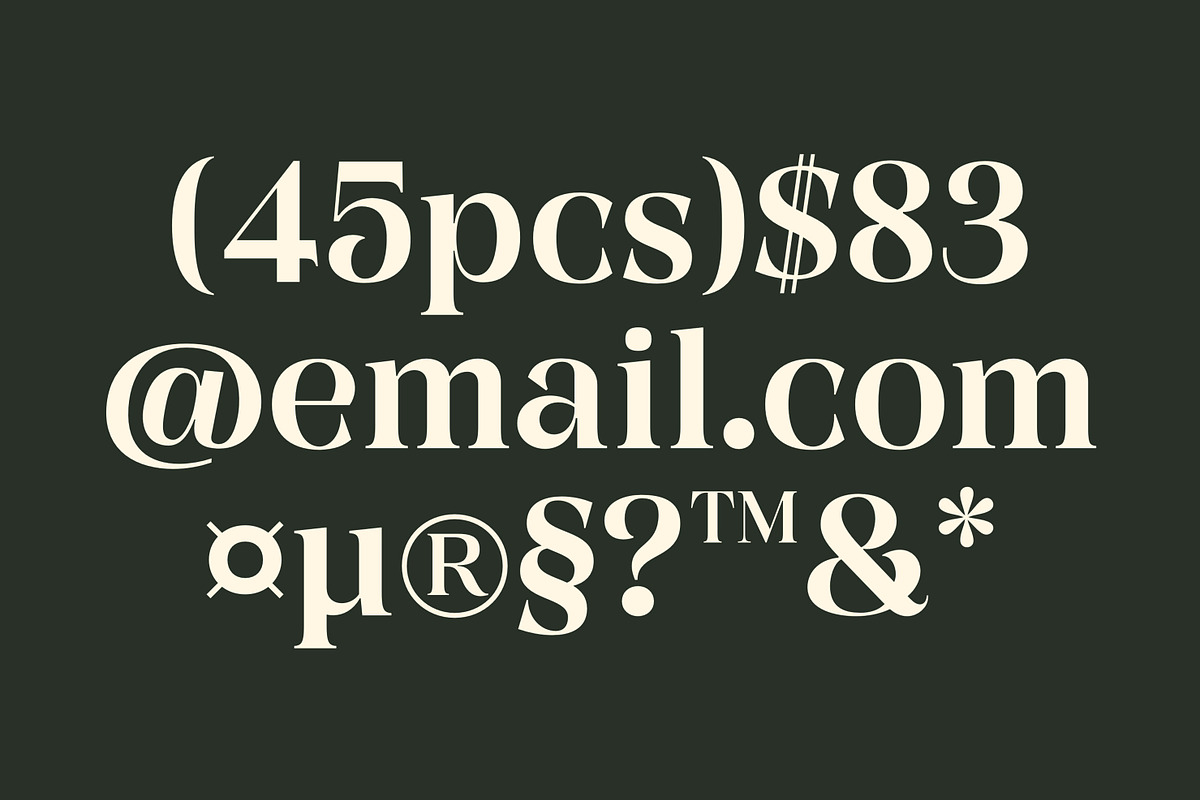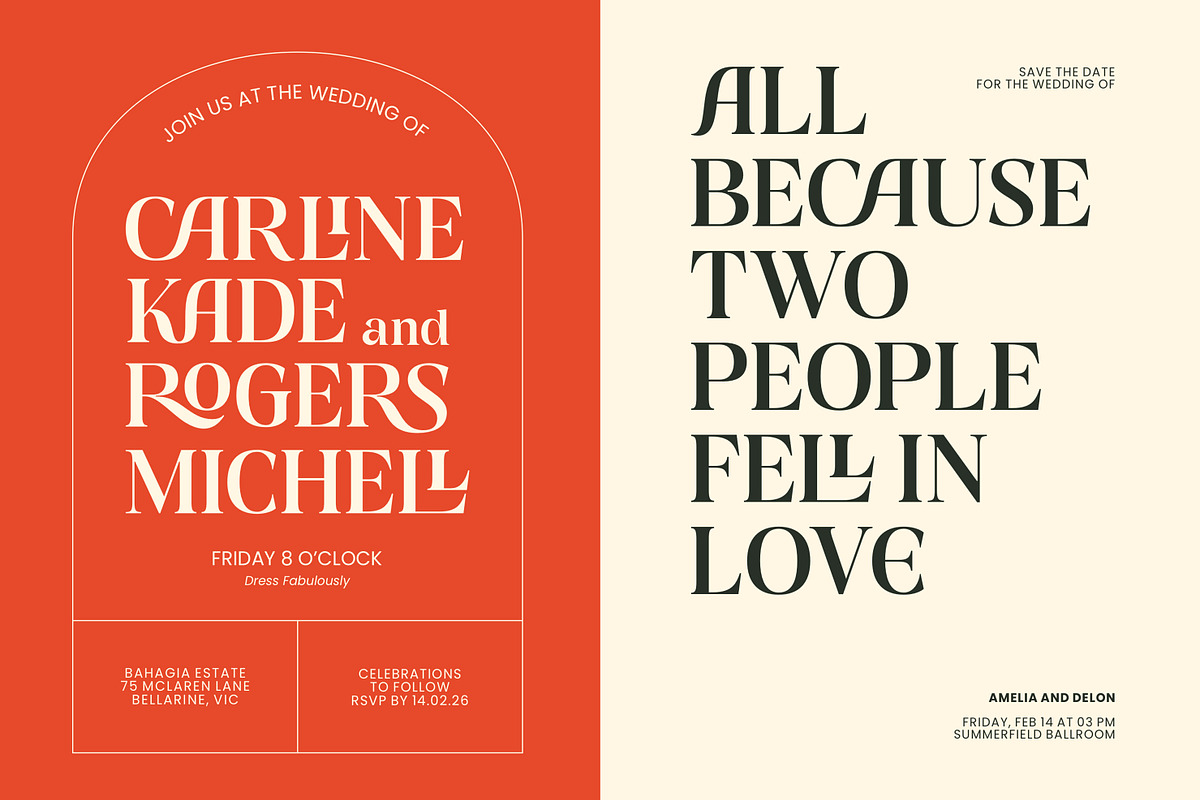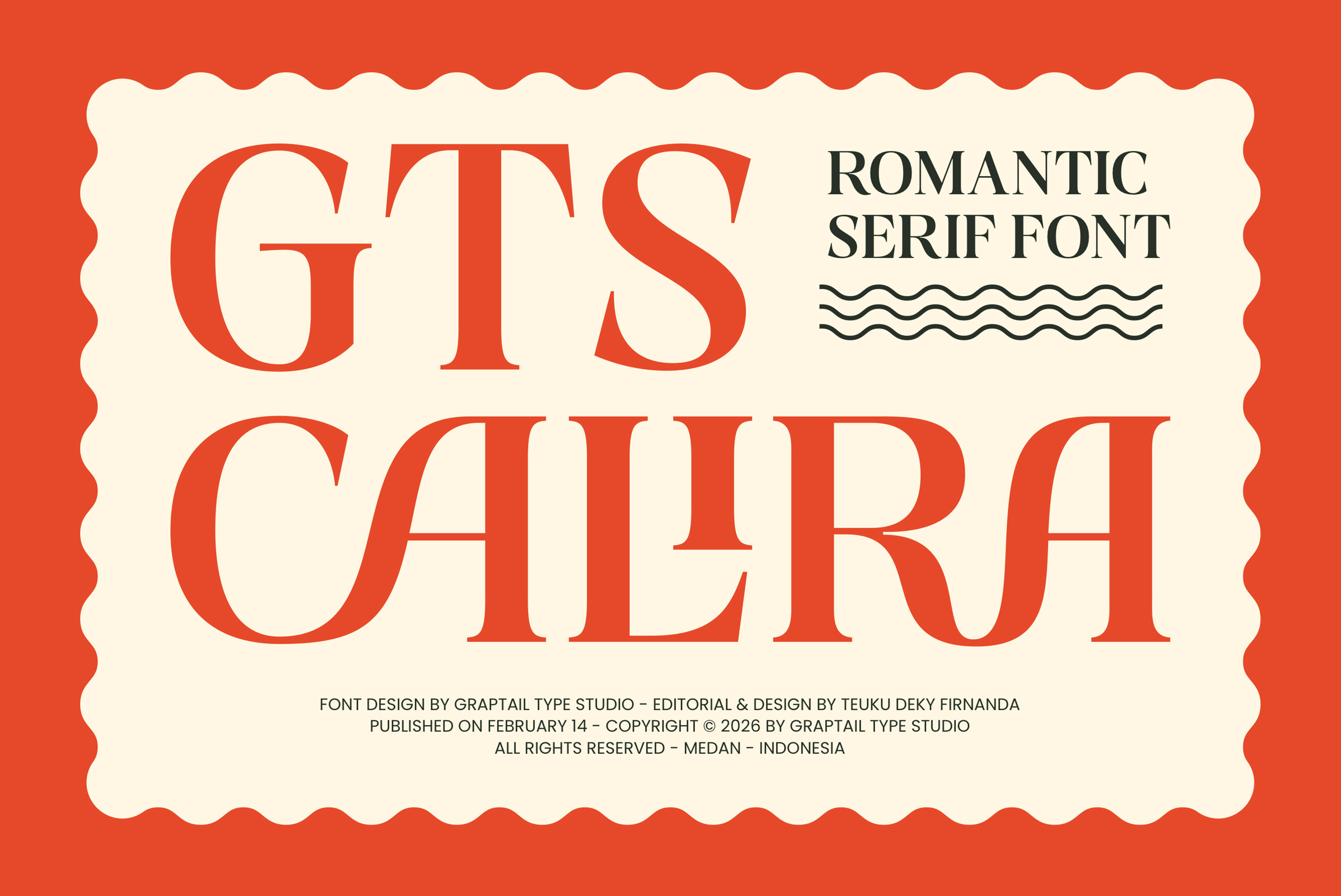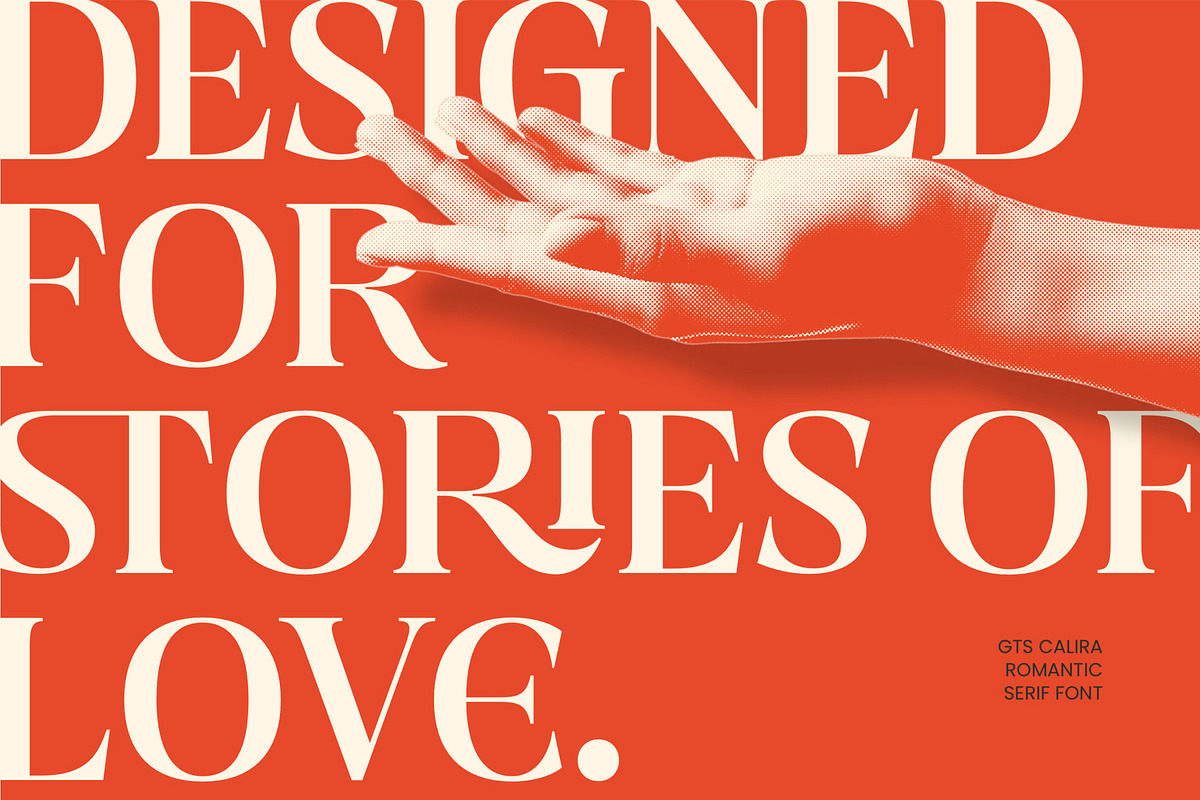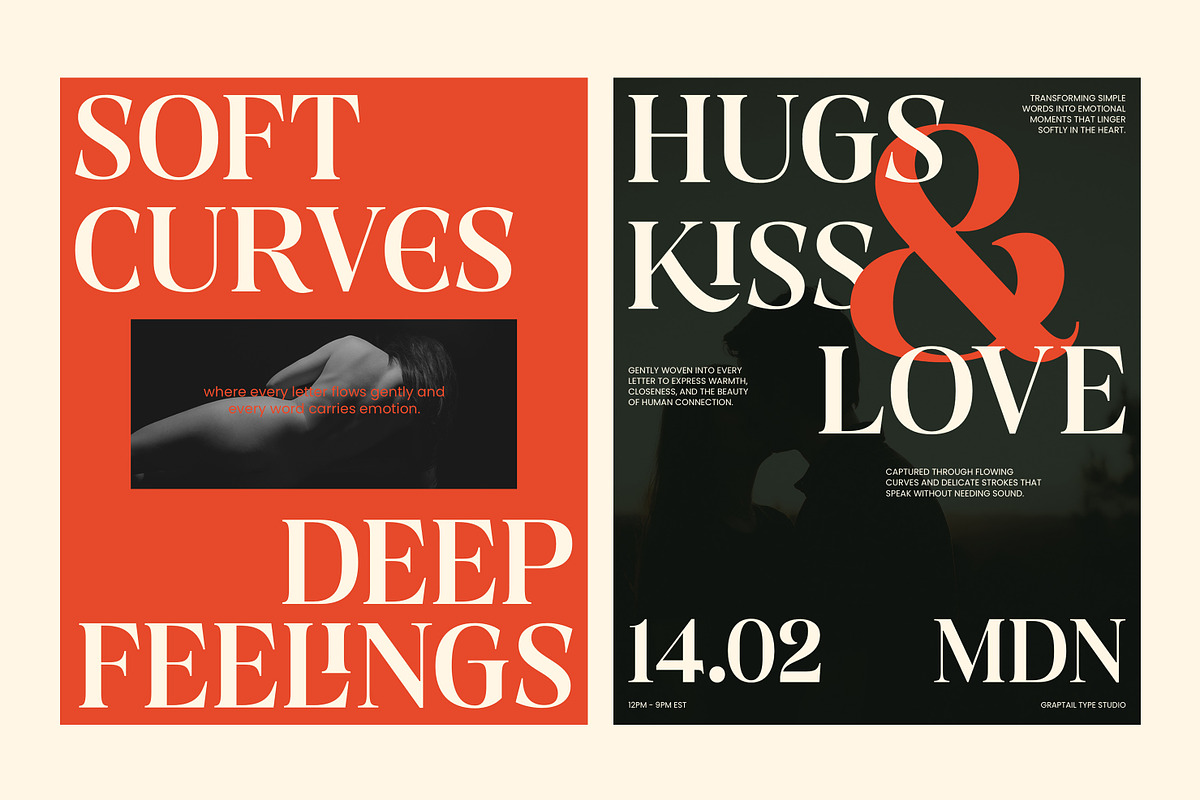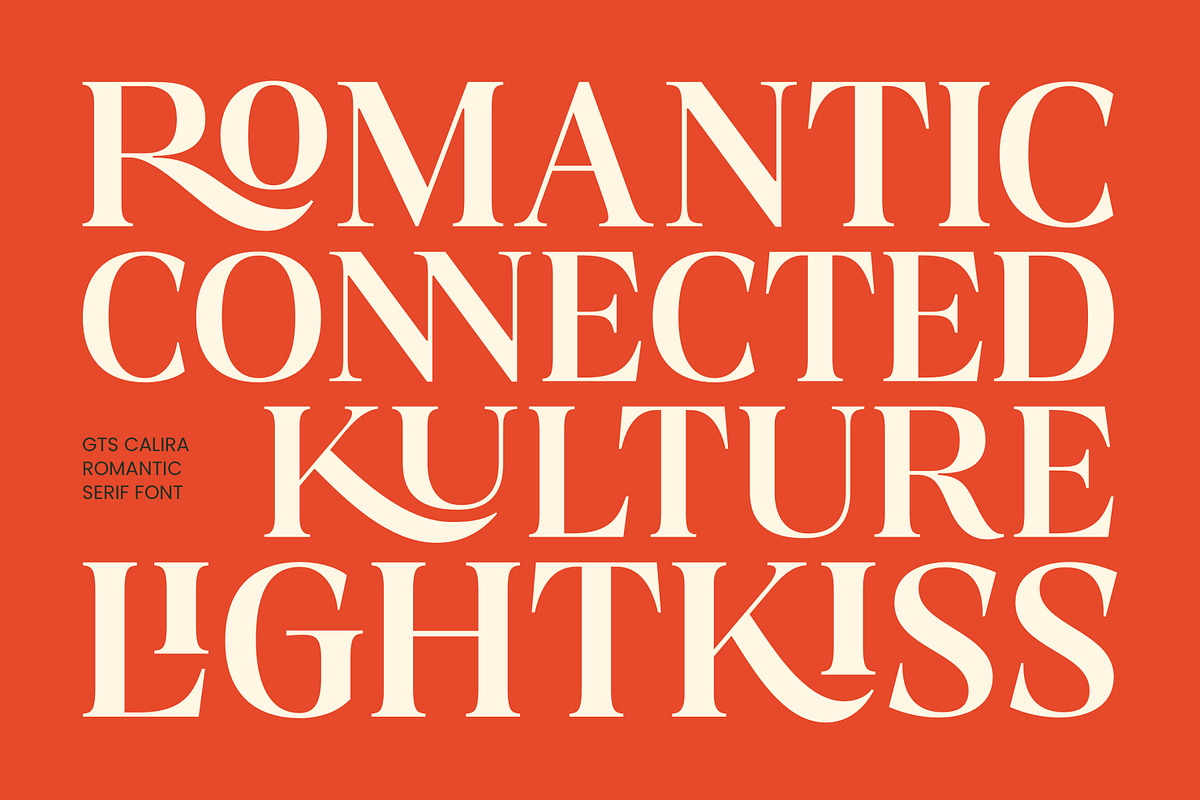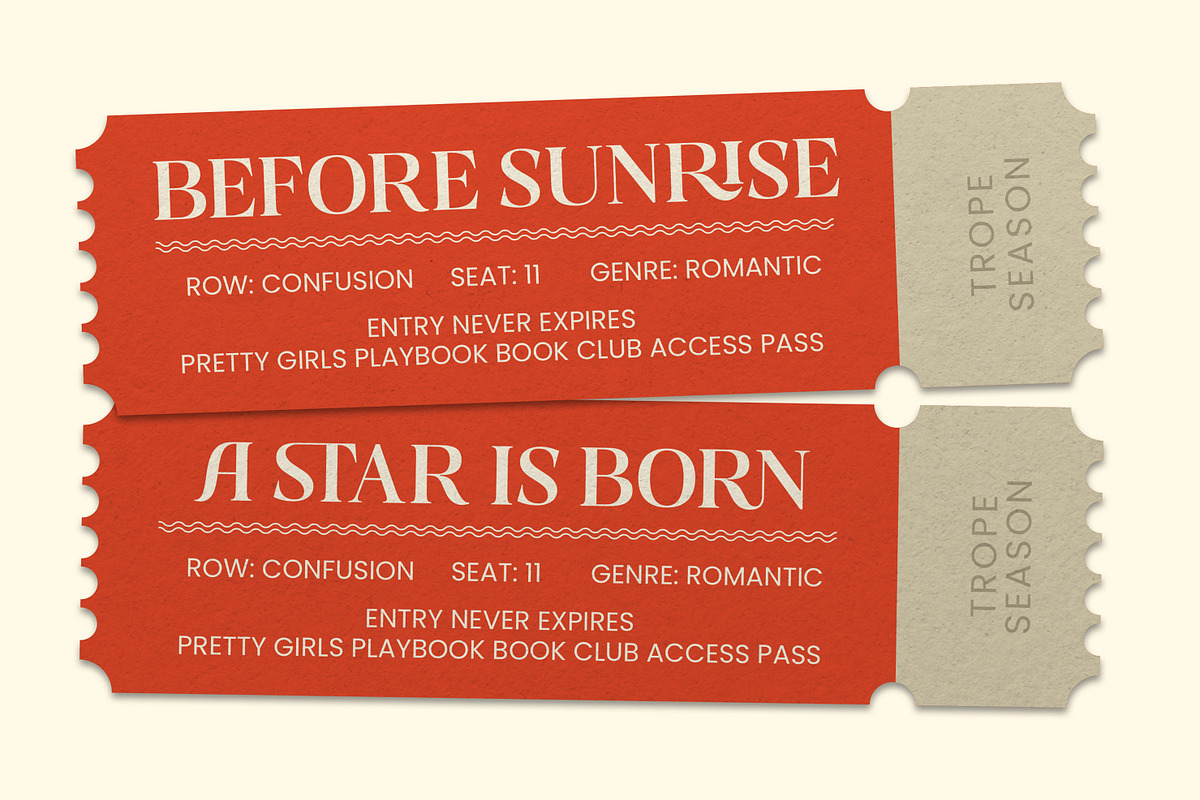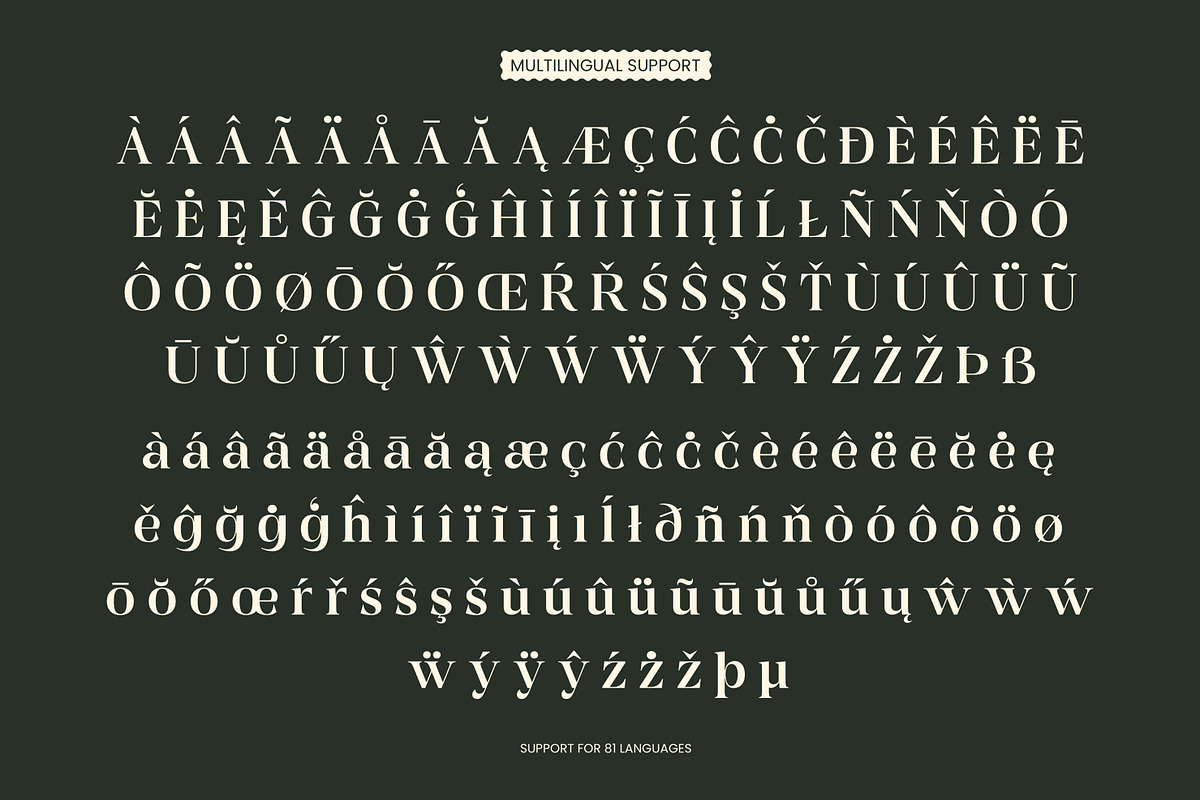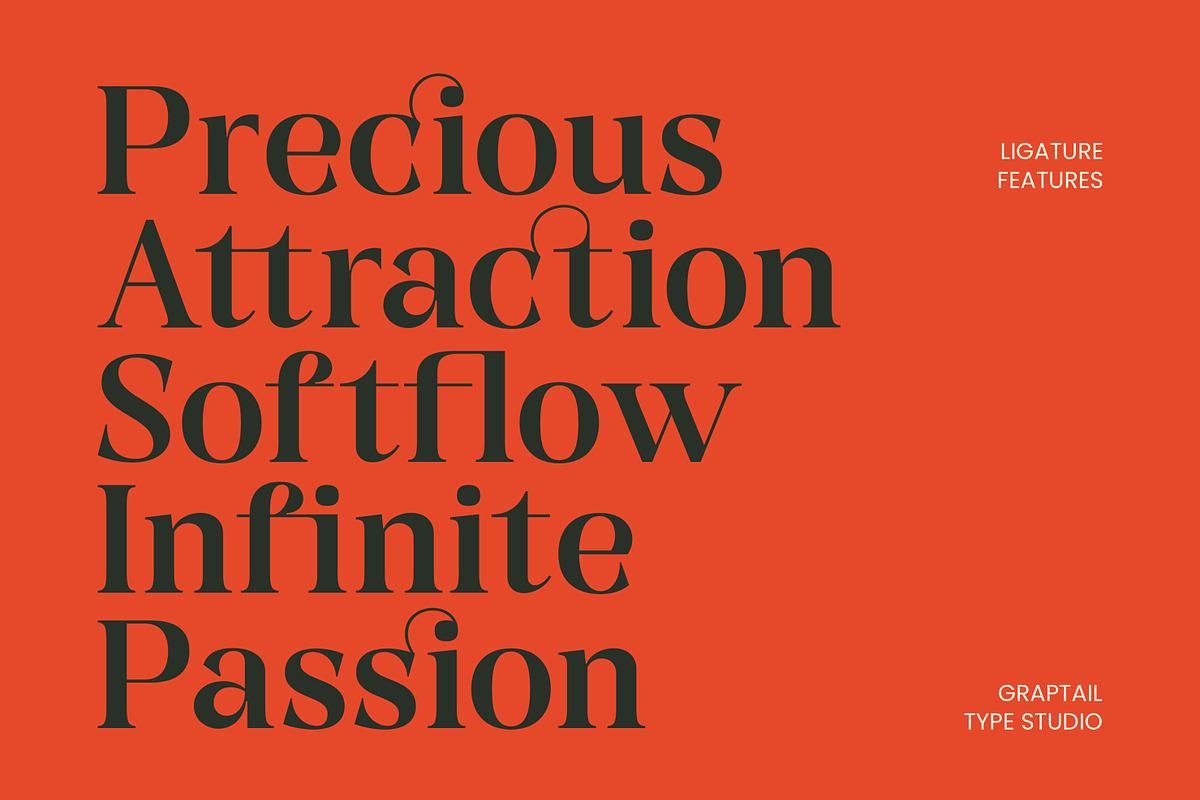
Gts Calira - Romantic Serif Font
Gts Calira is a romantic serif typeface that blends classic elegance with a soft, modern expression. Designed with graceful proportions, subtle stroke contrast, and rounded terminals, this font delivers a warm, emotional, and premium feel.
The key highlight of Gts Calira is its 27 uppercase and lowercase ligatures, allowing smoother character connections and more natural typographic flow. These ligatures help create dynamic, custom-looking compositions, making every design feel more expressive and refined.
With its romantic yet confident serif structure, Gts Calira brings:
- Elegant & sophisticated character
- Warm, emotional presence
- Artistic yet professional appeal
This typeface is perfect for a wide range of creative applications, including:
- Branding & logo design
- Product packaging (especially lifestyle, beauty, and artisan brands)
- Posters & editorial layouts
- Film titles & visual identity
- T-shirts & merchandise
- Social media graphics
- Wedding, Valentine’s, and romantic-themed campaigns
Gts Calira performs beautifully in large headlines and display settings, making it an excellent choice for visuals that aim to feel distinctive, expressive, and memorable.